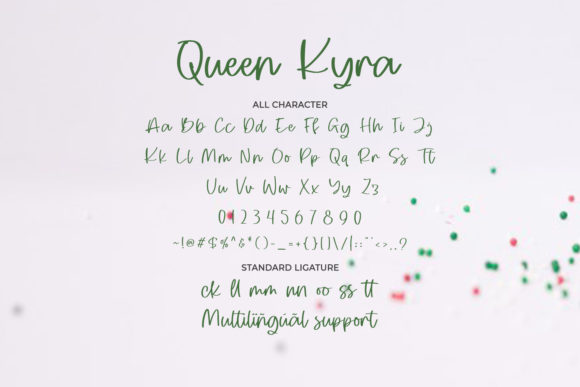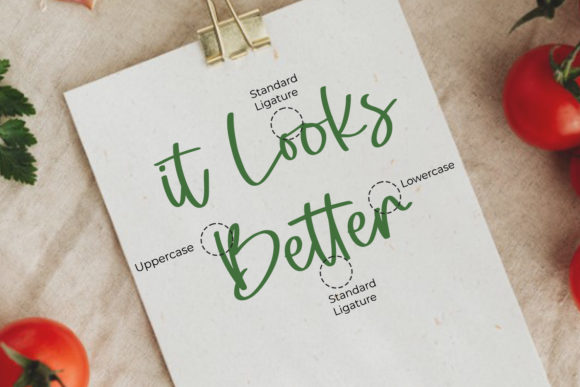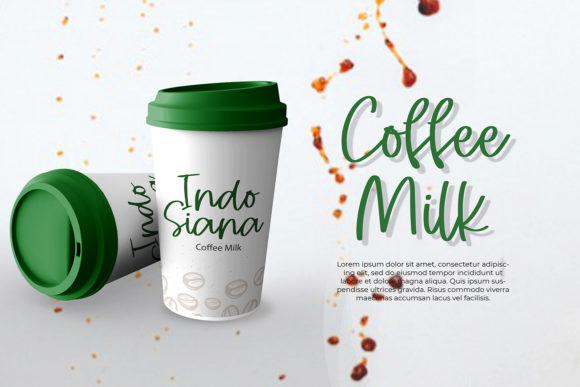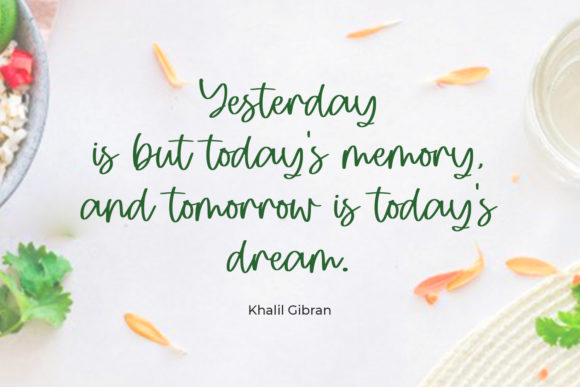
About Queen Kyra Font
Queen Kyra is a beautiful handwritten font, made for any professional project. It is the best for logos, branding and quotes. Every letter has a unique and beautiful touch.